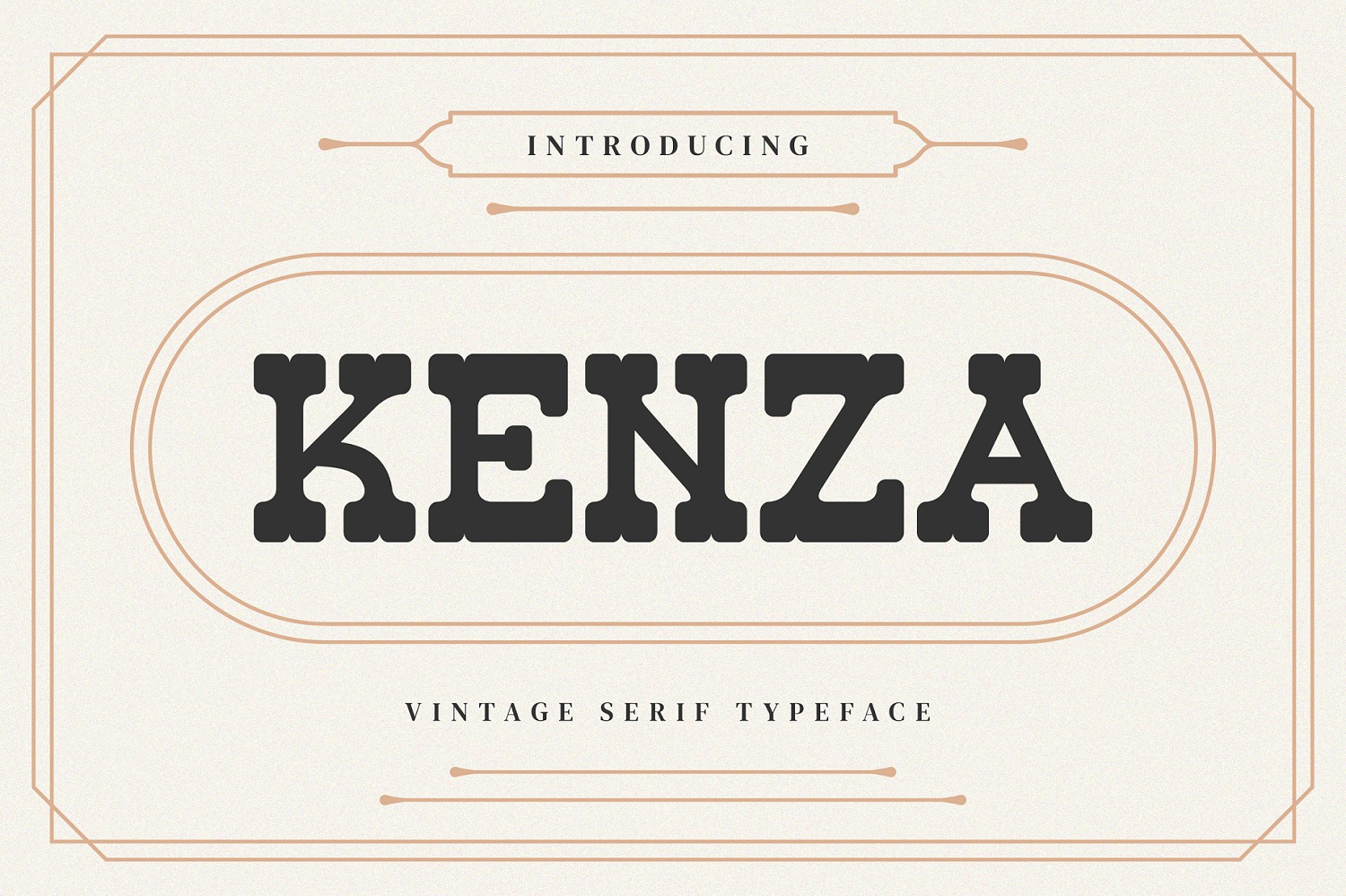
Kenza – Vintage Serif Font
Kenza – Vintage Serif Font is a flexible and reliable font created to fit multiple design needs, from branding and packaging to social media and editorial layouts. Kenza Serif Font inspired by the famous minimalist logo perfect for the purposes of designing templates, brochures, videos, advertising branding, logos, invitation, layout design, elegant crafting, beauty design and more.